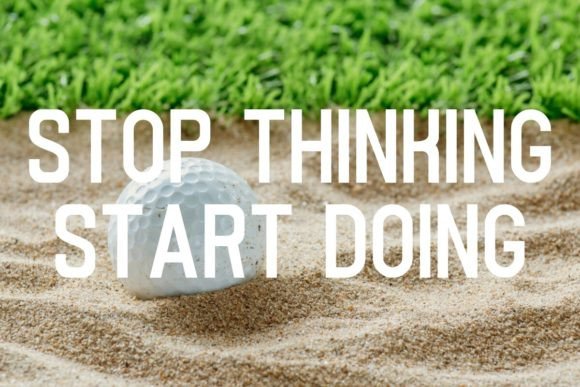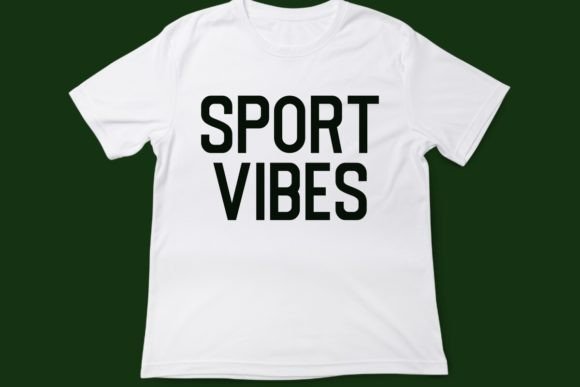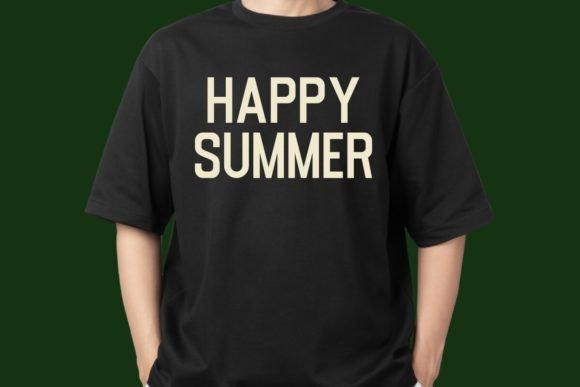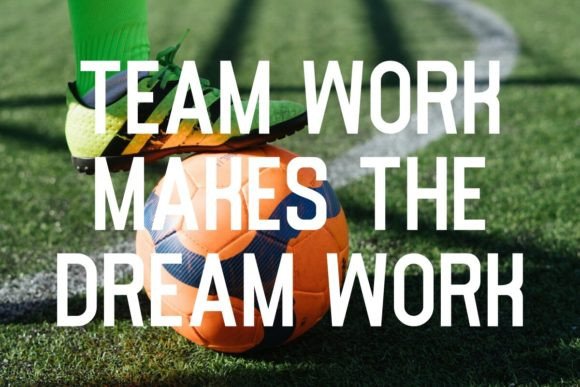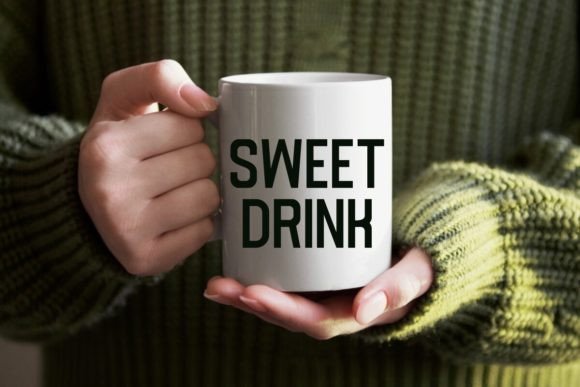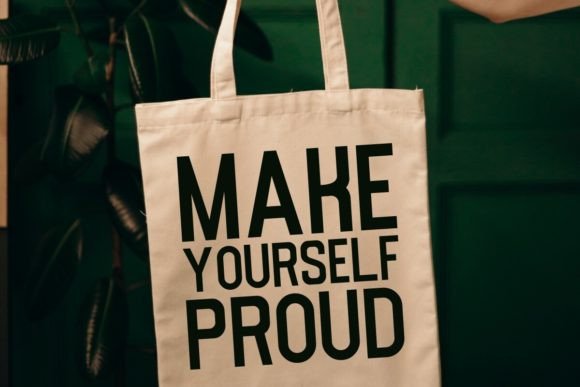
Introduction to Outsport Font
Outsport is a bold and modern sans serif font designed for dynamic and impactful design.
This versatile typeface is perfect for creating striking quotes, trendy t-shirts, eye-catching mugs, stylish tote bags, and sleek tumblers .